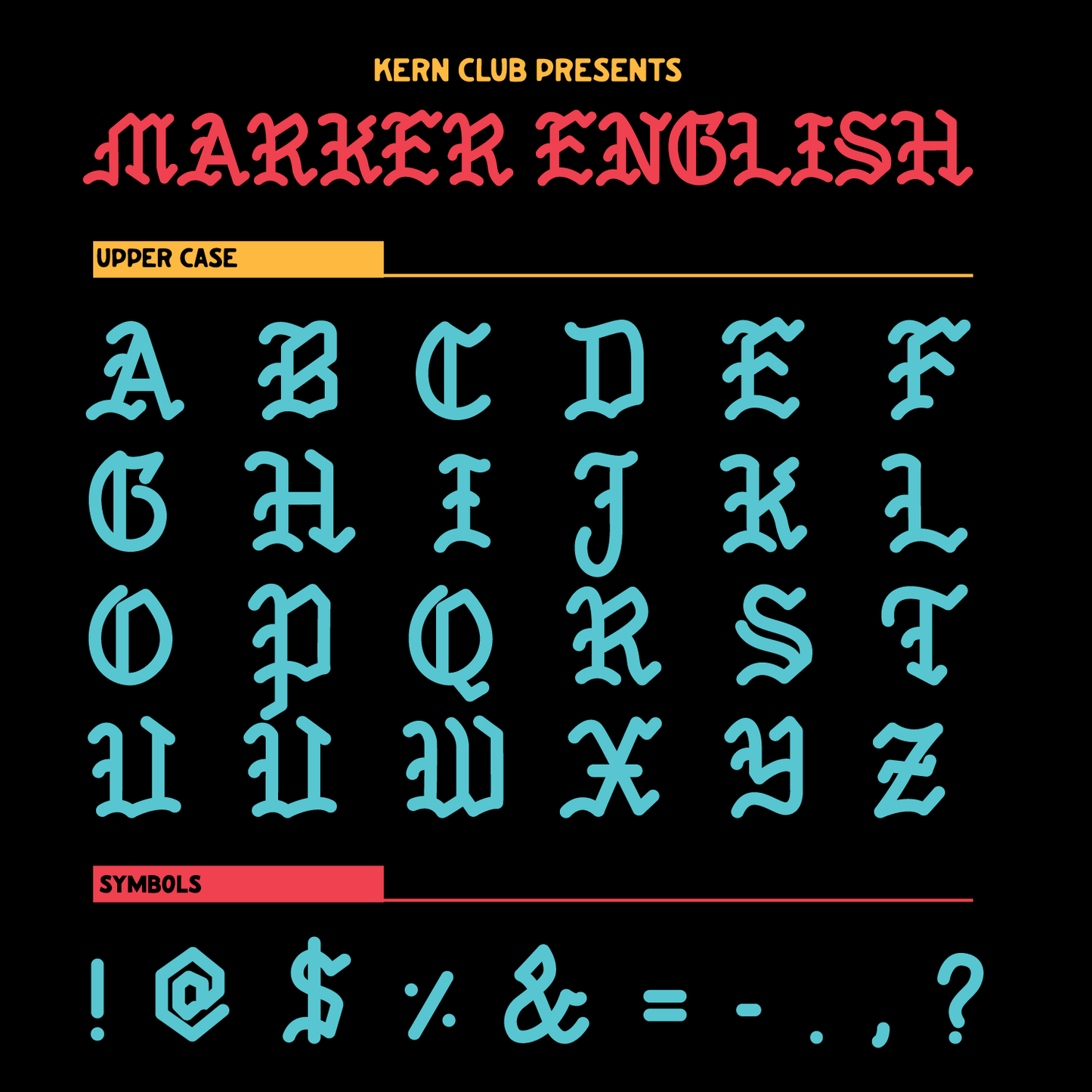
Marker English Font
Monoline black letter font designed by Samborghini
- Lowercase Character Set a-z
- Includes regular, thin and inked versions (3 fonts)